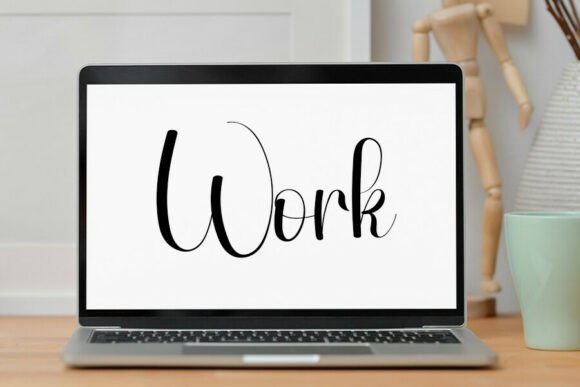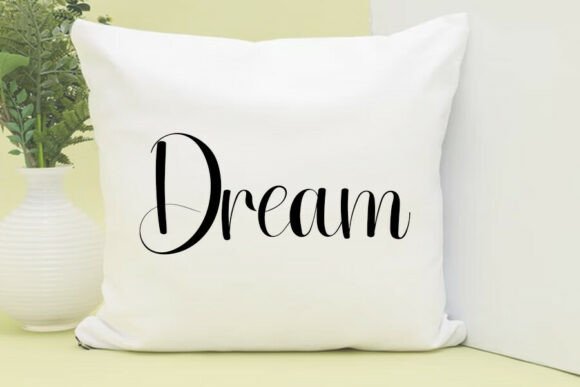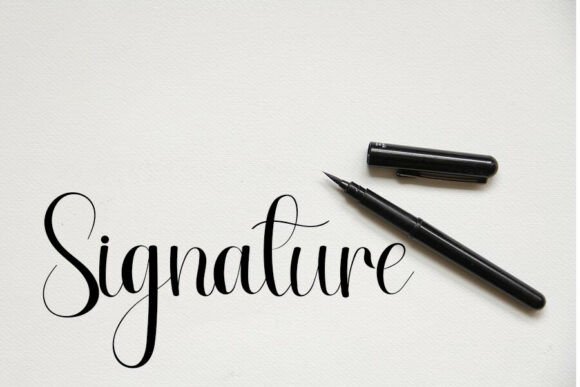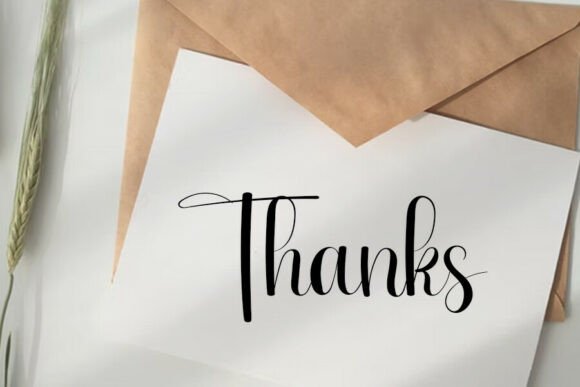
Introducing February Font: Elevate Your Designs with Elegance and Vibrancy
In the world of design, a font can make all the difference in capturing the essence of a brand or message. Introducing “February” – a uniquely elegant and refreshingly vibrant font that is the ideal blend of style and grace. This stunning font is perfected for design utilizations like YouTube banners and cover logo mockups, allowing designers to elegantly convey the personality of their brand while providing a pleasing aesthetic.
The Perfect Accent for Various Design Projects
“February” is not just limited to digital designs; it’s also the perfect accent for various print materials, including wedding invitations, ID cards, flyers, and crafts. Its versatility and sophistication make it an excellent choice for designers and crafters looking to add a touch of elegance to their projects. Whether you’re creating a romantic wedding invitation or a professional ID card, “February” font is sure to make a statement.
Unlocking a New Level of Progress and Development
What sets “February” apart from other fonts is its simplicity and uniqueness. In its simplicity, “February” holds the key to unlocking a new level of progress and development for your enterprise. By incorporating this font into your designs, you’re not just adding a visual element; you’re creating a lasting impression that resonates with your audience. The clean lines, precise curves, and balanced proportions of “February” make it easy to read and visually appealing, making it perfect for designs that require a professional touch.
Convergence of Simplicity and Uniqueness
At the convergence of simplicity and uniqueness, “February” truly stands out as a remarkable font choice. Its distinctive style is not too bold, nor too subtle, making it the perfect balance of elegance and vibrancy. Designers and crafters can use “February” font with confidence, knowing that it will elevate their designs and leave a lasting impression on their audience.
Design Applications for February Font
The versatility of “February” font makes it suitable for a wide range of design applications, including:
- YouTube banners and cover logo mockups
- Wedding invitations and save-the-date cards
- ID cards and badges
- Flyers and brochures
- Crafts and DIY projects
- Branding and advertising materials
Why Choose February Font?
There are several reasons why designers and crafters should consider “February” font for their next project:
- Elegance and sophistication: “February” font exudes elegance and sophistication, making it perfect for designs that require a professional touch.
- Versatility: This font is suitable for a wide range of design applications, from digital designs to print materials.
- Unique style: “February” font has a distinctive style that sets it apart from other fonts, making it a great choice for designers looking to create a lasting impression.
- Easy to read: The clean lines and precise curves of “February” font make it easy to read, even at small sizes.
In conclusion, “February” font is a uniquely elegant and refreshingly vibrant font that is perfect for designers and crafters looking to elevate their designs. Its versatility, sophistication, and distinctive style make it an excellent choice for a wide range of design applications. Whether you’re creating a YouTube banner, wedding invitation, or ID card, “February” font is sure to make a statement. So why settle for an ordinary font when you can make a statement with “February”? Try it today and experience the difference it can make in your designs.